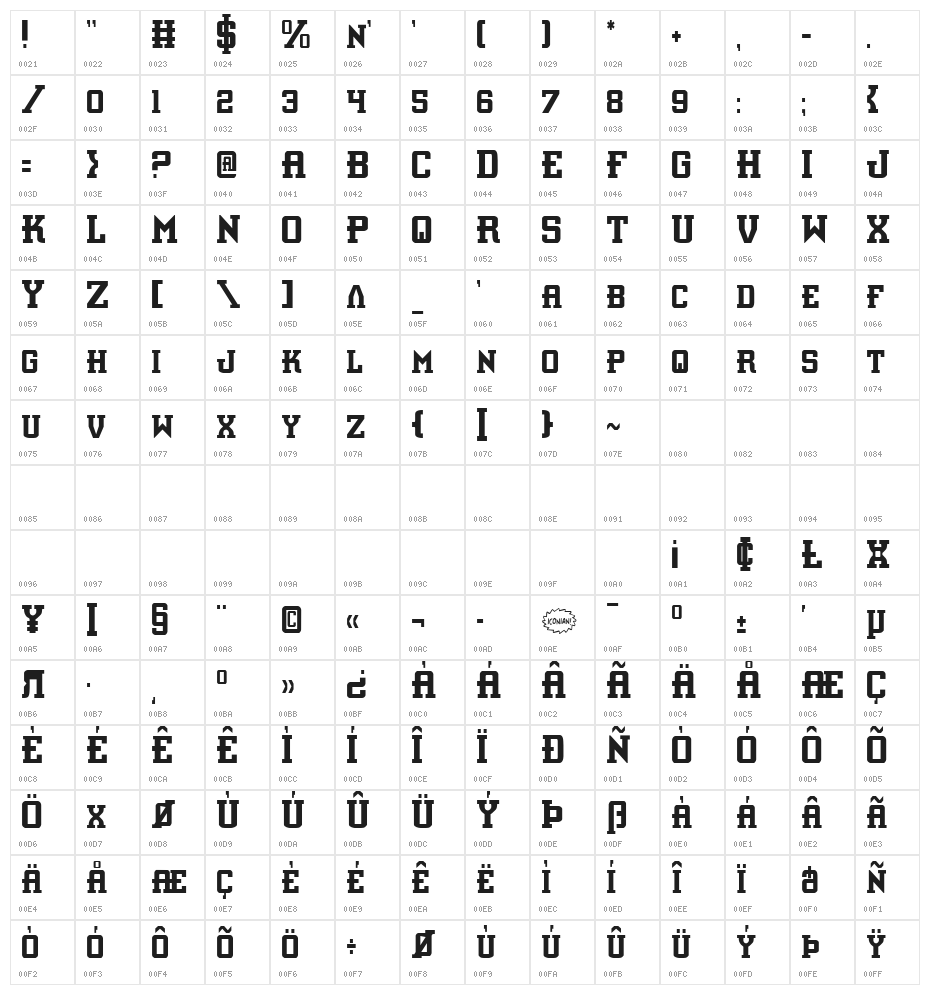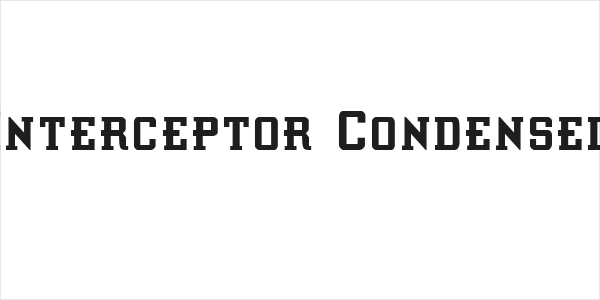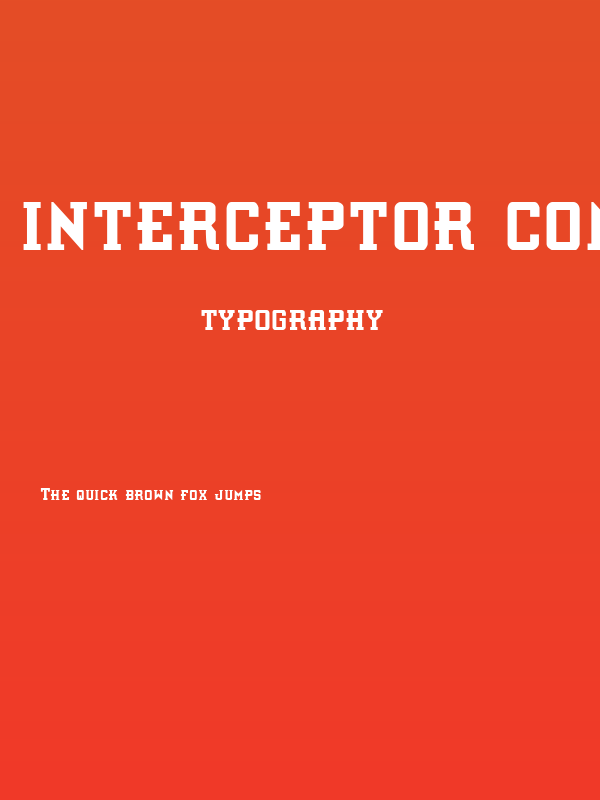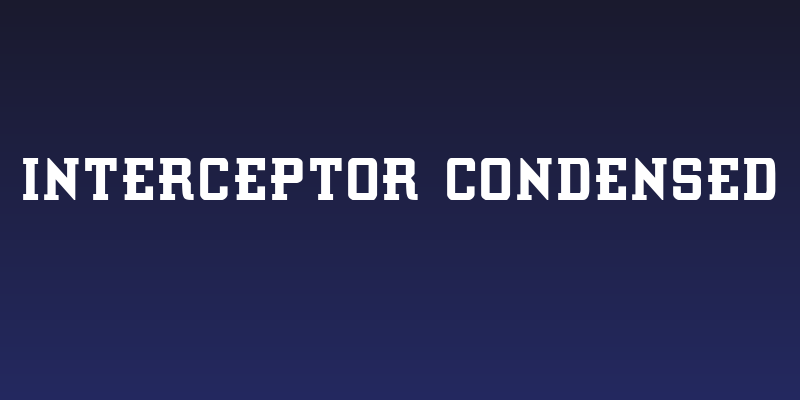
Interceptor Condensed Font
Interceptor Condensed Description
This font features a bold, condensed style with strong geometric shapes and a robust presence. The characters are designed with a uniform thickness, giving it a solid and impactful look. The uppercase letters are particularly striking, with sharp angles and a blocky appearance that conveys strength and stability. The numerals and special characters maintain this consistent style, ensuring a cohesive look across all text. The font's condensed nature allows for efficient use of space, making it ideal for headlines or situations where space is limited but impact is needed.
| Proposed Projects | Ideal for headlines, posters, branding, and any design requiring a bold statement. |